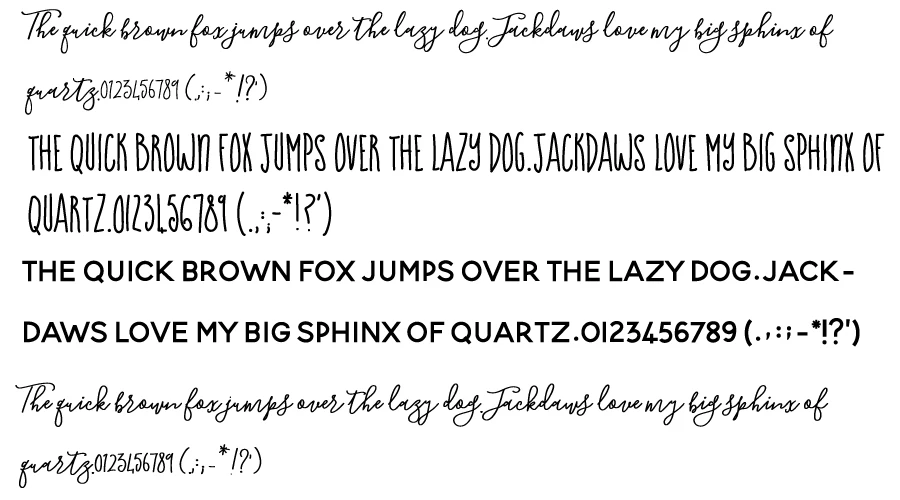
Blooming Elegant Font is a hand-lettered modern calligraphy script font family designed by Nicky Laatz. With 3 variants: Regular, Mono-line, and Monoline Bold, Blooming Elegant include Opentype Stylistic Alternates for all lowercase letters and a selection of Ligatures to add some authenticity to your designs. It has a playful yet elegant nature.
Blooming Elegant Font font is perfect for:
- Wedding invitations.
- Logos.
- Business cards.
- Crafting.
- Quotes.
- Stationary.
- Decoration.
- YouTube thumbnail.
| Name | Blooming Elegant Font. |
| Style | Hand-lettered, Calligraphy, Script. |
| Designer | Nicky Laatz. |